Walbaum & Avenir Next Font Pairing
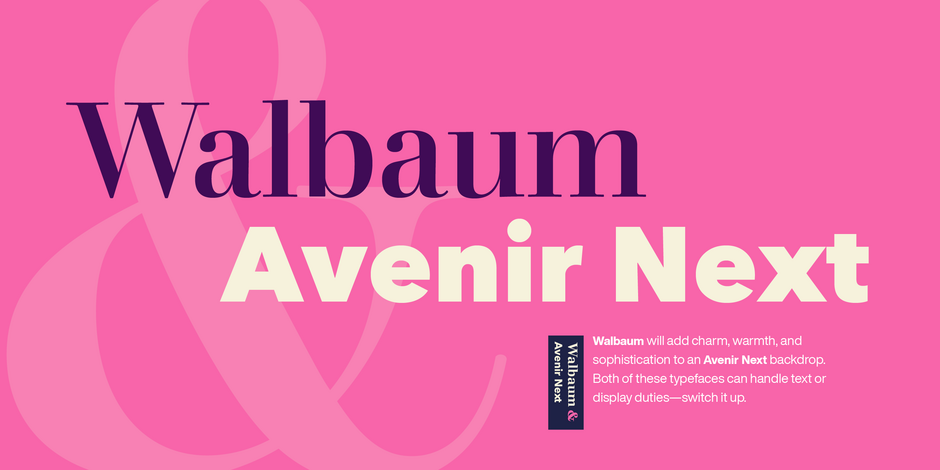
Friendly Business
Avenir Next is a new take on a classic face—it’s the result of a project whose goal was to take a beautifully designed sans and update it so that its technical standards surpass the status quo, leaving us with a truly superior sans family. Overall, the family’s design is clean, straightforward and works brilliantly for blocks of copy and headlines alike.
Walbaum’s text weights work well for the demands of digital environments, while decorative and display weights offer more dramatic, sculptural forms. Unusually, the family also includes a generous range of ornaments. From massive billboards, to micro-type on e-readers, Walbaum has it covered.